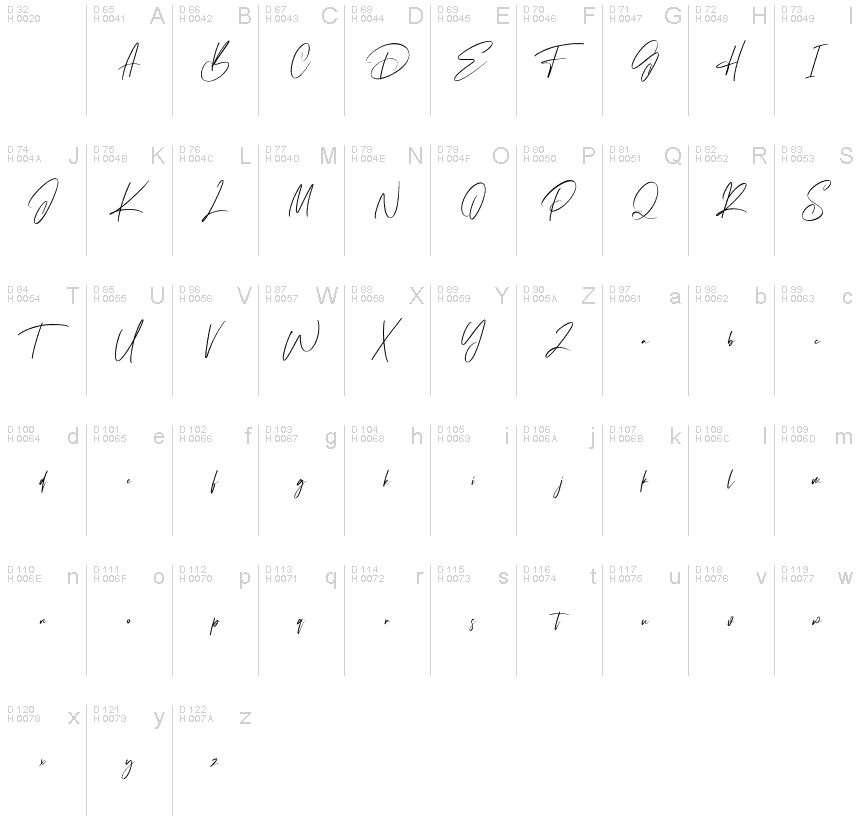
Bettylovas Free Regular
Bettylovas, designed by Maulana Creative, is an exquisite handwritten signature font that exudes elegance and sophistication.
With its extra-light weight, this font adds a delicate touch to any design project. Perfect for wedding invitations, luxury branding, or high-end editorial layouts, Bettylovas effortlessly embodies grace and style. Its flowing curves and unique letterforms create a memorable visual experience that captivates the eye.
Embrace the artistry of Bettylovas and elevate your designs to new levels of refinement and charm.